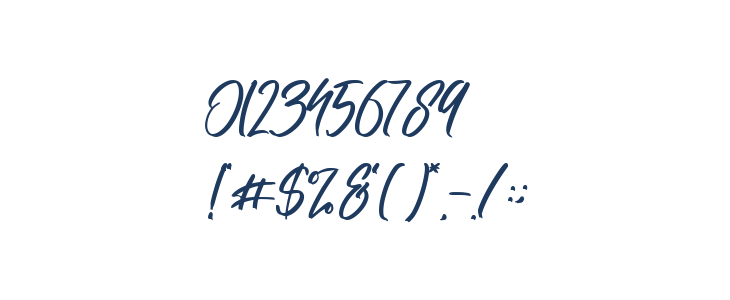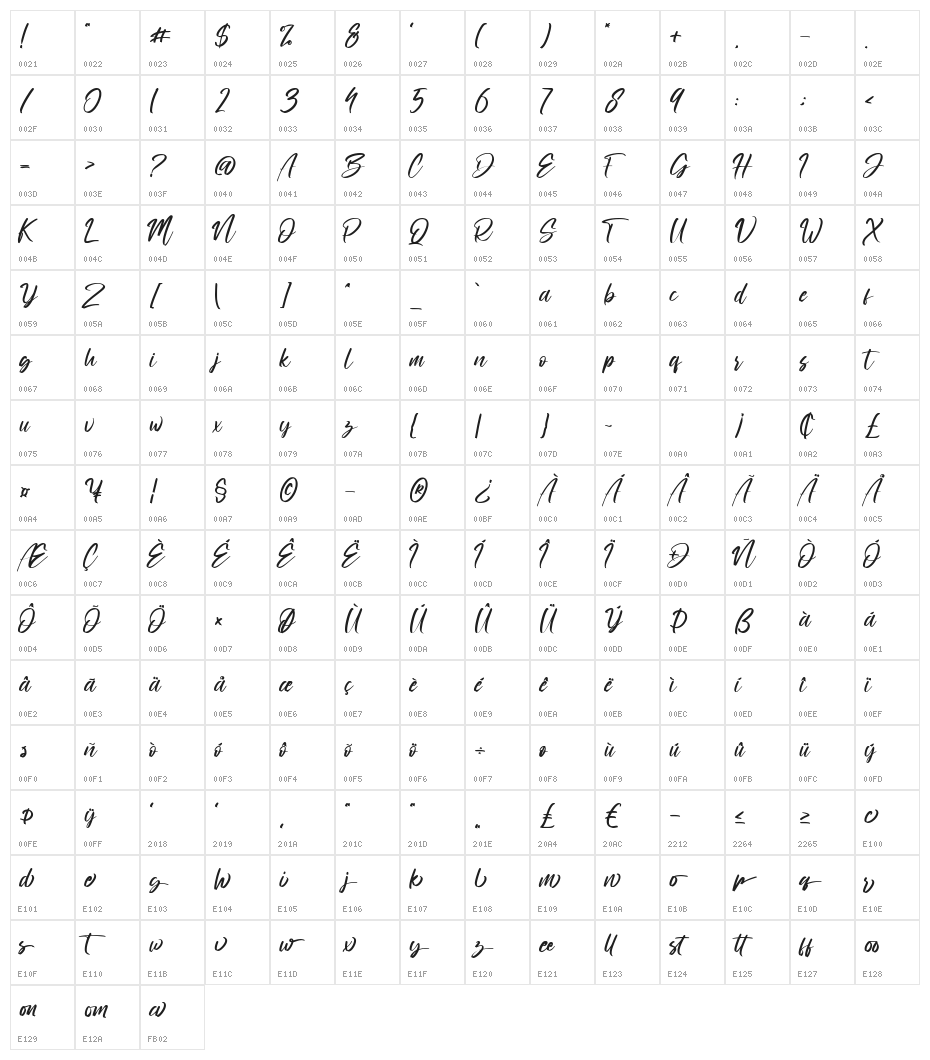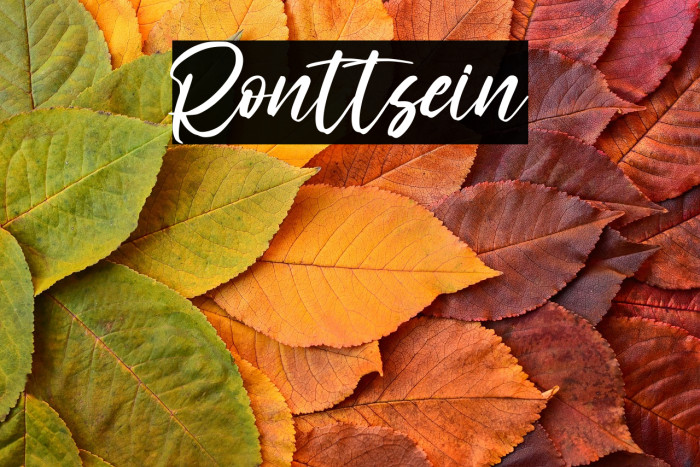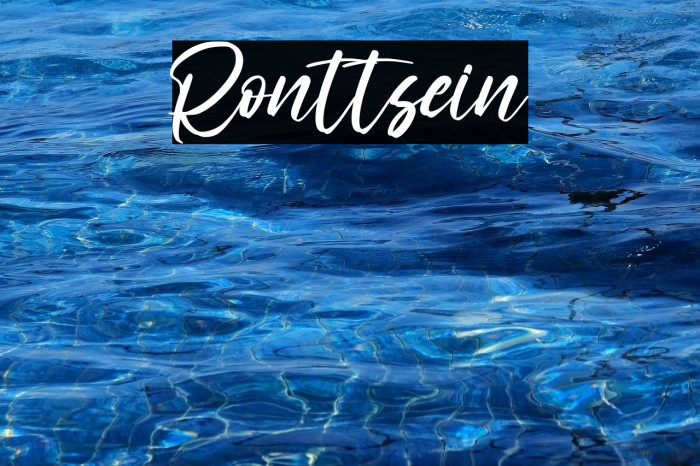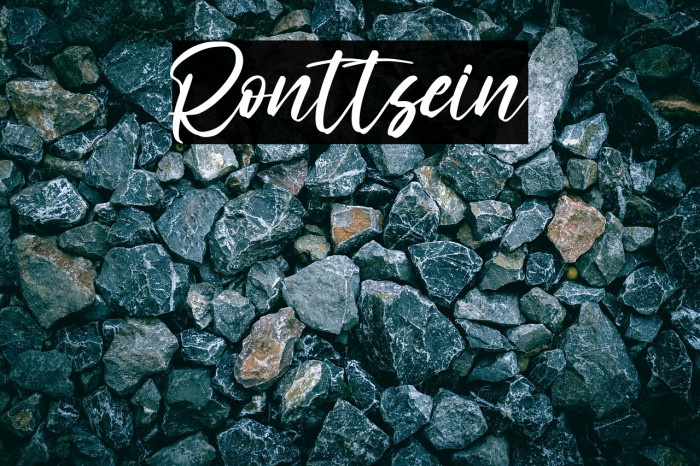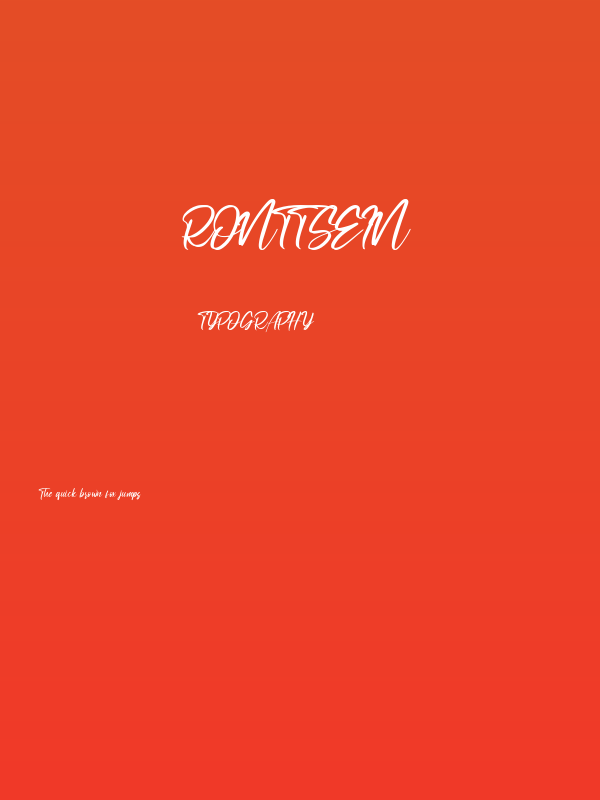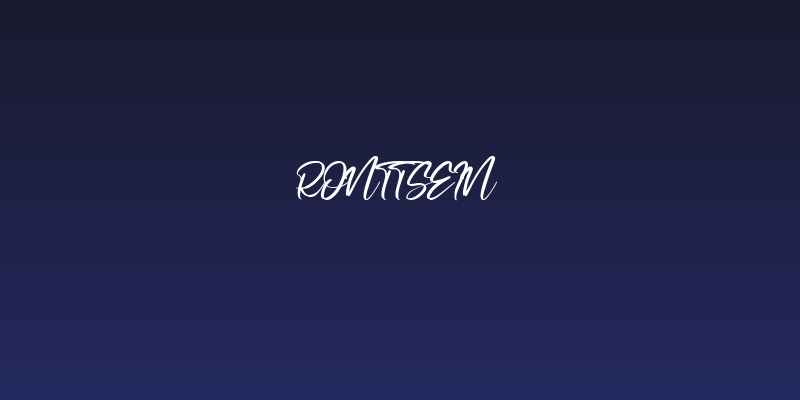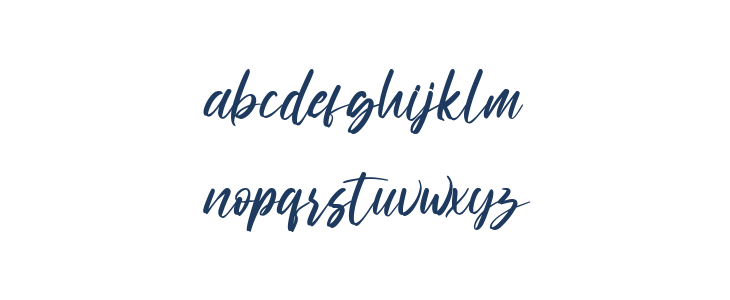
Ronttsein Font
Ronttsein Description
This font features a dynamic and expressive script style, characterized by its fluid and elegant strokes. The letters are interconnected, creating a sense of movement and flow. The uppercase letters are bold and prominent, while the lowercase letters maintain a consistent rhythm. The numerals and special characters are designed to complement the overall aesthetic, with a playful yet sophisticated appearance. This font's design is perfect for adding a personal touch to any project, making it ideal for creative and artistic applications.
| Use Case | Logos, Headlines, Invitations |
| Proposed Projects | Ideal for wedding invitations, greeting cards, branding, and logo design. |